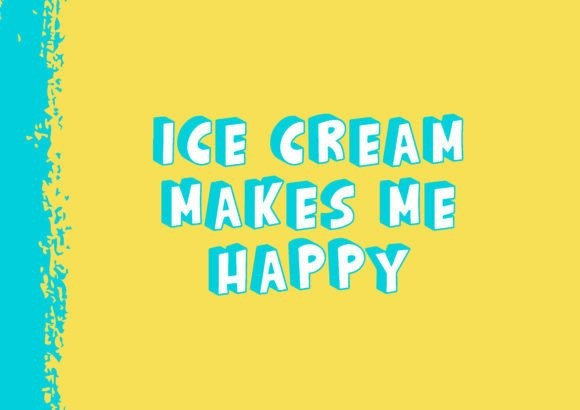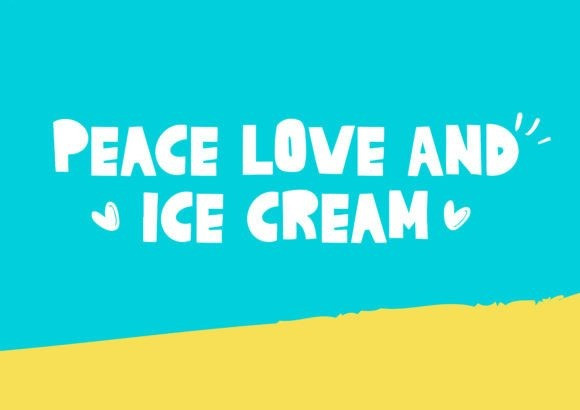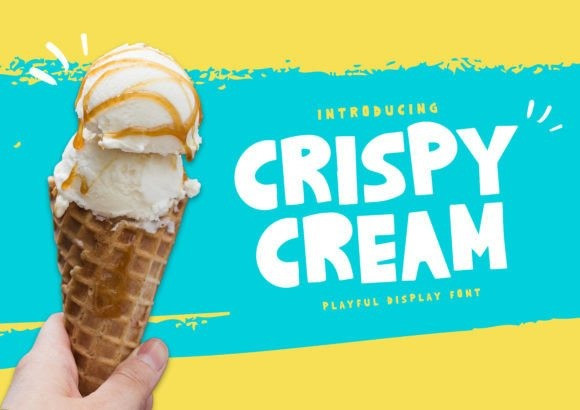
Crispy Cream Font
Crispy Cream Display Font is a whimsical and bold display font. It has a thick lettered and cool vibe, making it great for crafting, titles, displays and more. This original look will appeal to a wide range of crafty ideas, from letterheads and titles, to stationery. Rock Slayers s a whimsical and bold display font. It has a thick lettered and cool vibe, making it great for crafting, titles, displays and more. This original look will appeal to a wide range of crafty ideas, from letterheads and titles, to stationery.